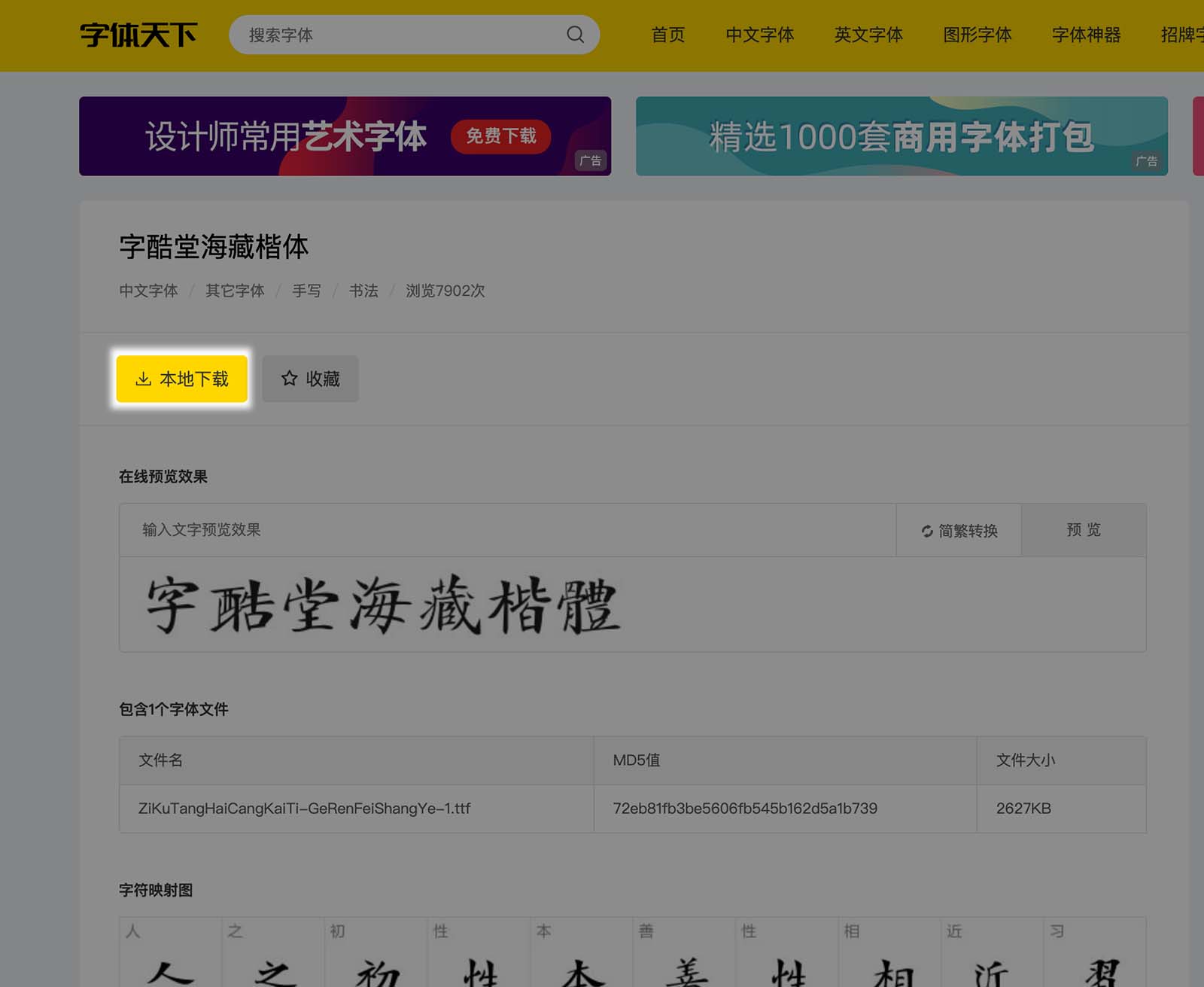
(traditional) Zi Ku Tang Hai Cang Kai Ti
Zi Ku Tang Hai Cang Kai Ti (字酷堂海藏楷体) is a calligraphy Chinese font that you can download for free. The characters are in traditional Chinese but the character input is with simplified Chinese. This font is created by Zi Ku Tang.